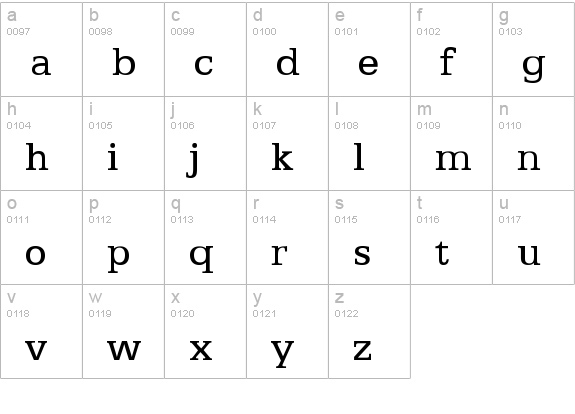
ATFAntique-Regular Font Details
ATFAntique-Regular is the standard, neutral variant in the ATFAntique typeface family \xE2\x80\x94 well suited to general body text, paragraphs, and standard typographic work.
ATFAntique-Regular is a classic and elegant serif font that exudes a timeless charm. With its clean lines and traditional design, this font is perfect for adding a touch of sophistication to your projects. The well-balanced letterforms and subtle flourishes make ATFAntique-Regular an excellent choice for a wide range of design applications, from branding to editorial design. What makes ATFAntique-Regular even more appealing is that it is available for free download at FontsMarket.com. This means that you can access this high-quality font without any cost, making it a valuable addition to your font library. Whether you are working on a print project or a digital design, ATFAntique-Regular will make your text stand out with its classic elegance and versatility. Download ATFAntique-Regular today and elevate your designs with this beautiful and timeless font.